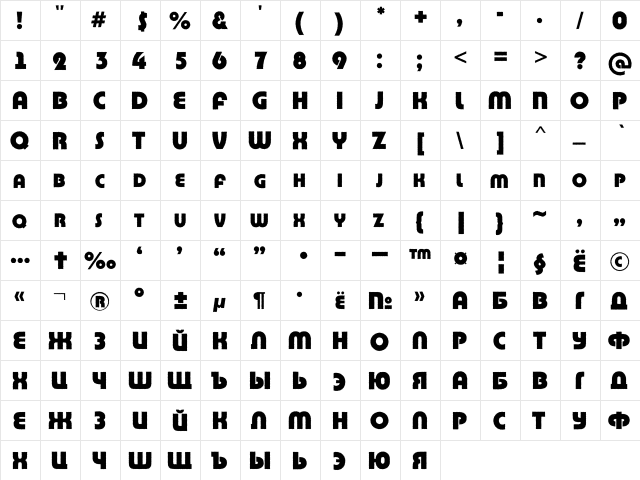
a_BighausTitulRg ExtraBold Font Preview
a_BighausTitulRg ExtraBold
Design Context for a_BighausTitulRg Typeface
a_BighausTitulRg takes a measured approach to typography — its balanced proportions and neutral character make it a reliable workhorse for both digital and print work. Its bold stroke weight gives it real presence on the page.